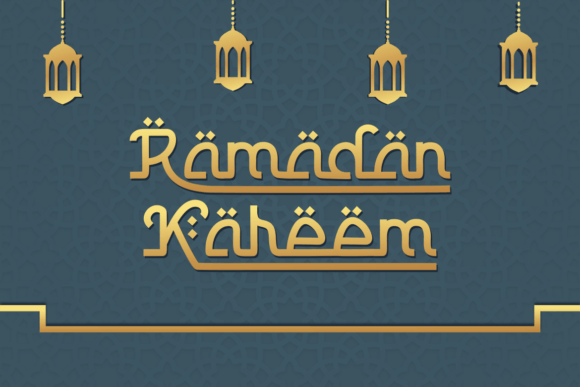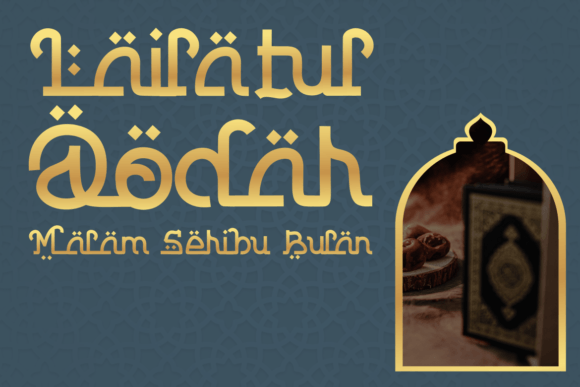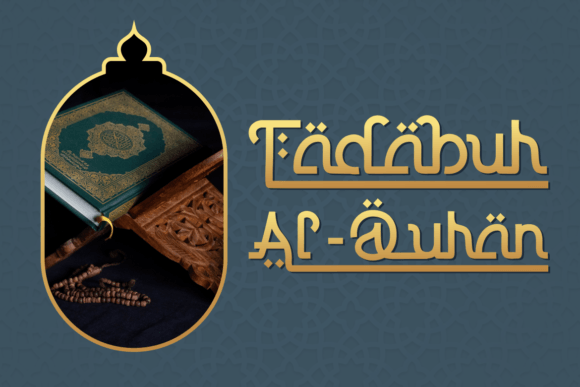
Introduction to Salamah Font
Salamah is a modern and luxury Arabic style font that we designed with original touch for your needs.
This very strong and sharp font is perfect for titles, typography, posters, magazines, brochures, packaging, Websites, and much more for your design needs, making your designs cooler .
Key Features of Salamah Font
Why Choose Salamah Font?
Salamah Font offers exceptional quality and versatility, making it a valuable addition to your design toolkit. Whether you’re creating for personal projects or commercial use, Salamah Font delivers professional results.